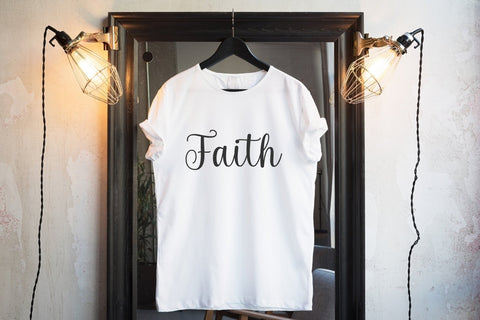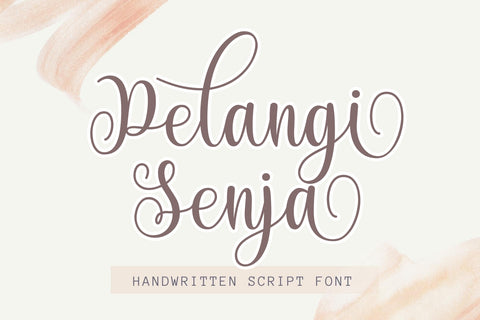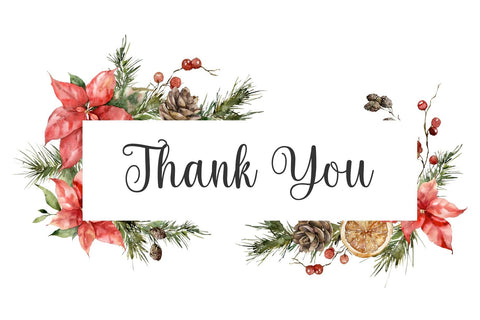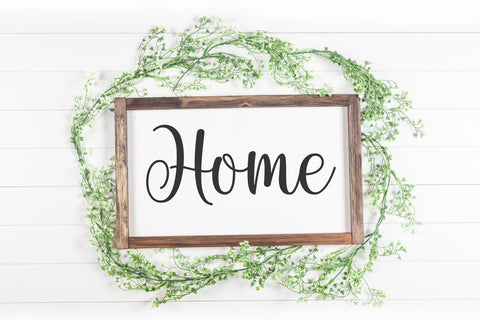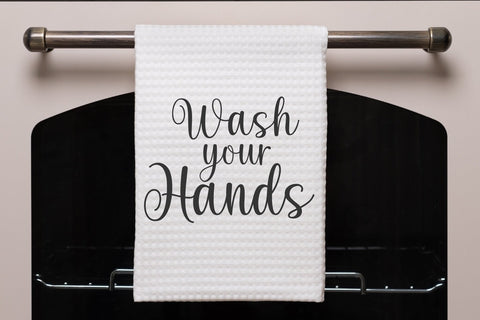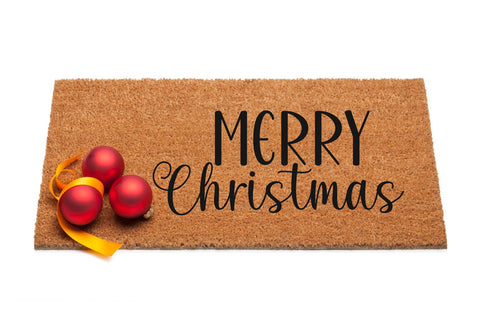
Pelangi Senja Font
Pelangi Senja is a remarkable handwritten font perfect for SVG designs, shirts, crafts, Procreate, Cricut projects, branding, blogs, logos, invitations, and more!